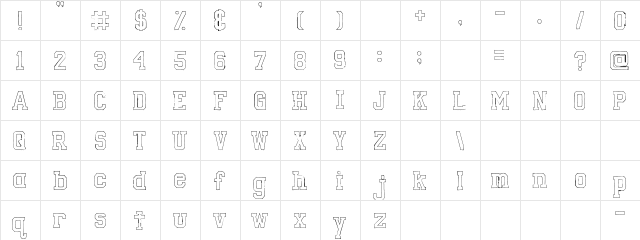
SBC College Daz Block Font Preview
Design Context for SBC College Daz Block Typeface
SBC College Daz Block has the bold swagger of sports branding: strong, assertive letterforms designed to dominate headlines and jerseys alike.
Built for sports team identities, athletic apparel, event posters, and high-energy promotional material.
Pro Tip: SBC College Daz Block thrives on contrast — try it large, bold, and tight against a clean background for maximum visual impact.